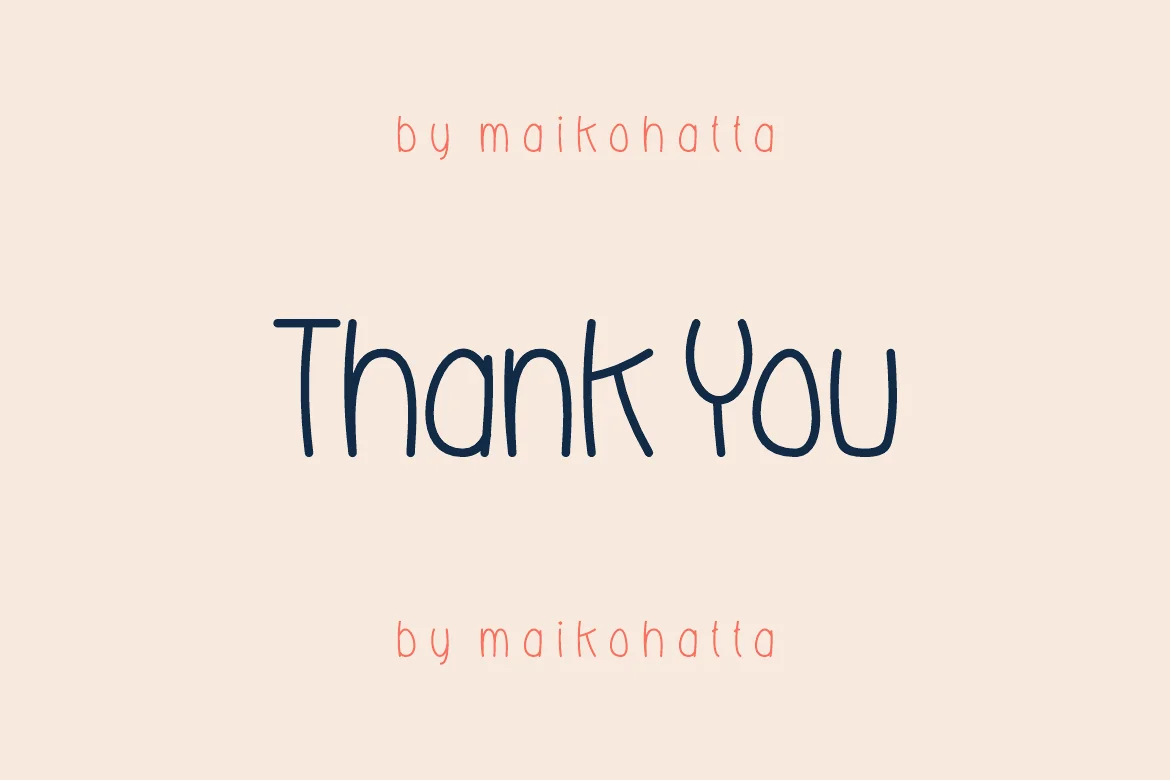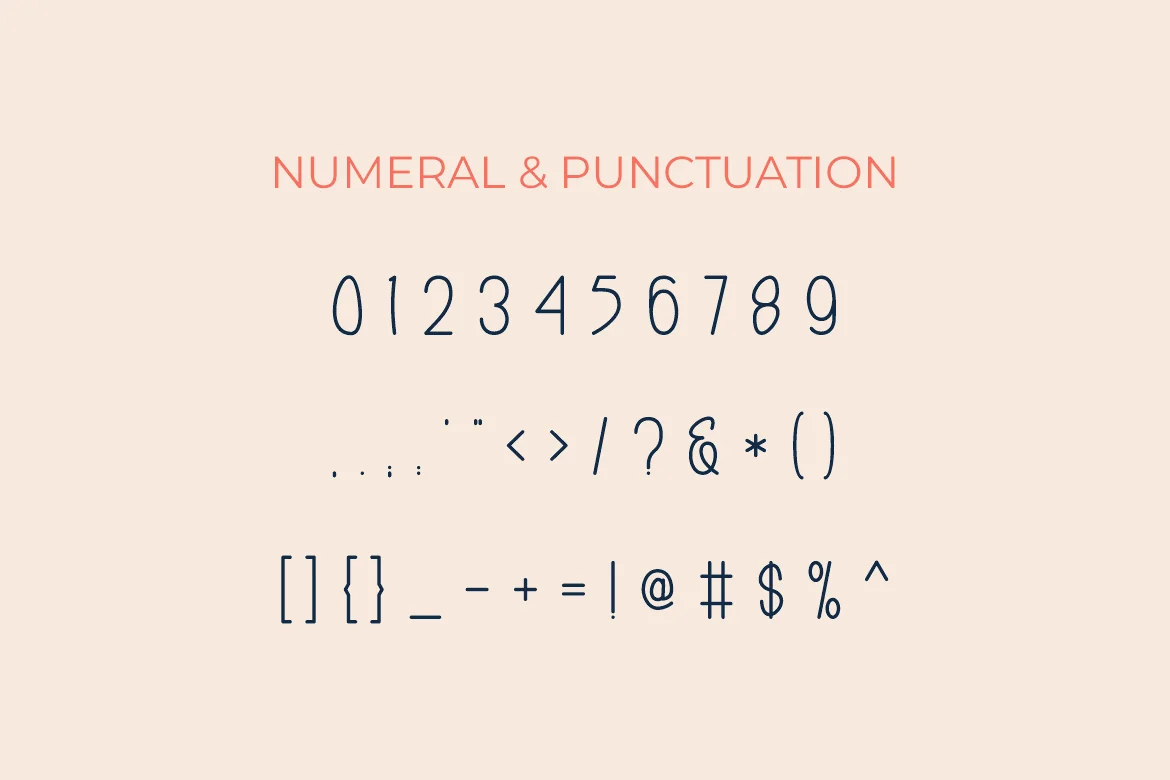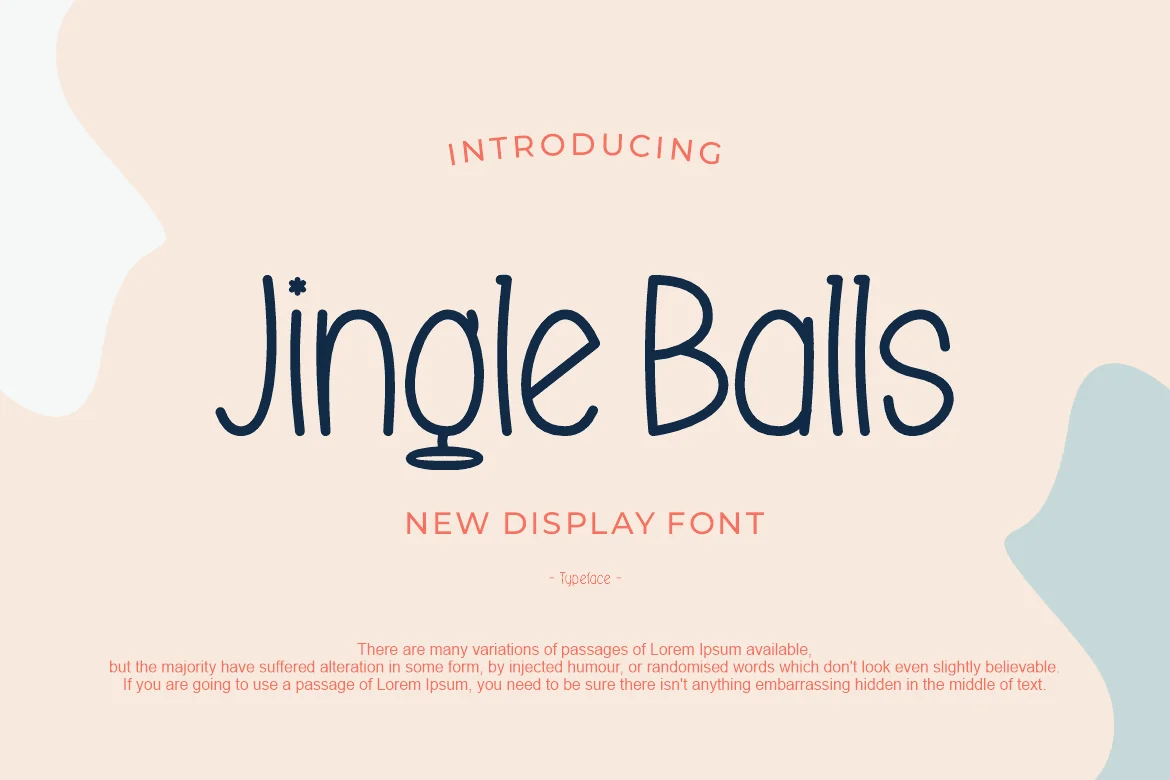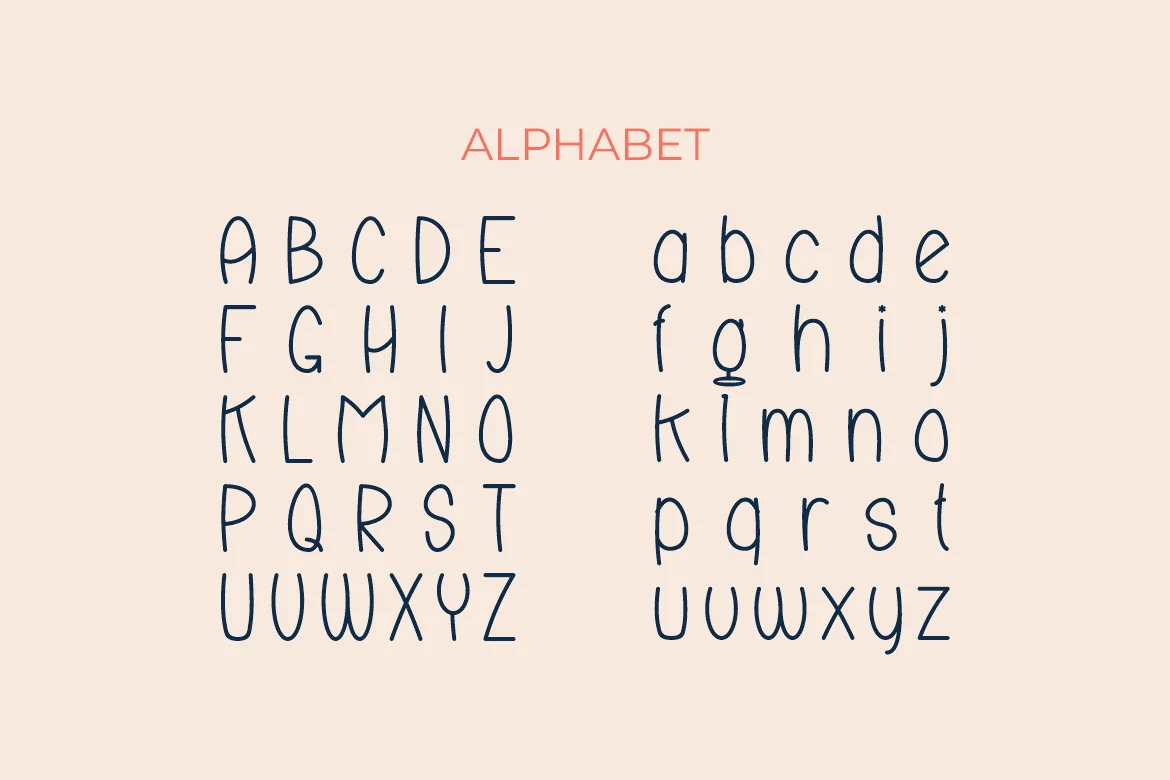
Jingle Balls – Christmas Font
Introducing our new product Jingle Balls – Christmas Font – Modern Font
Jingle Balls – Christmas Font – Modern Font is a bold and authentic display font. The font is suitable for any branding project like logo, t-shirt printing, esport, and many more. outstanding in a wide range of contexts.